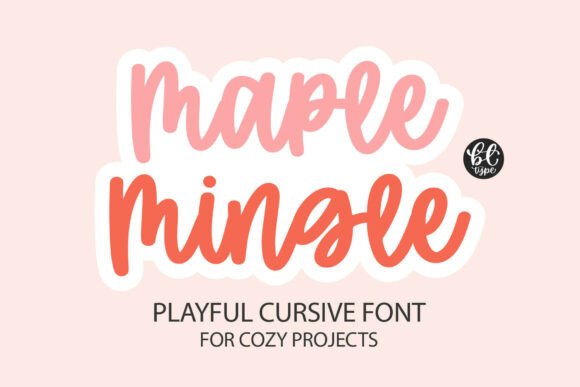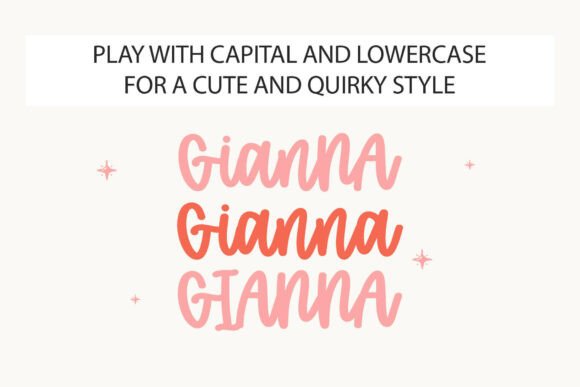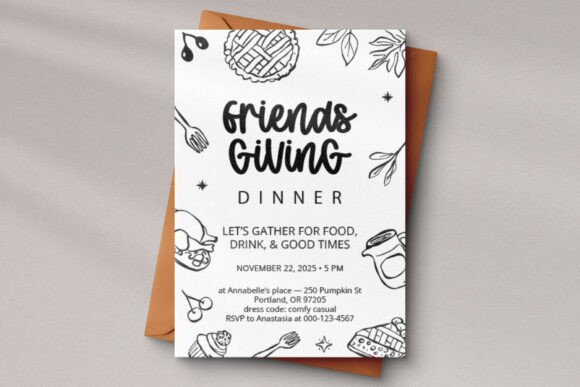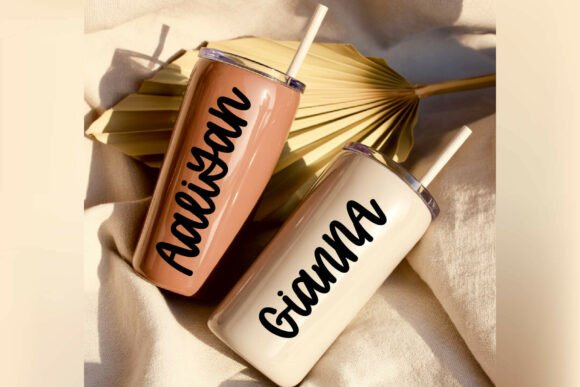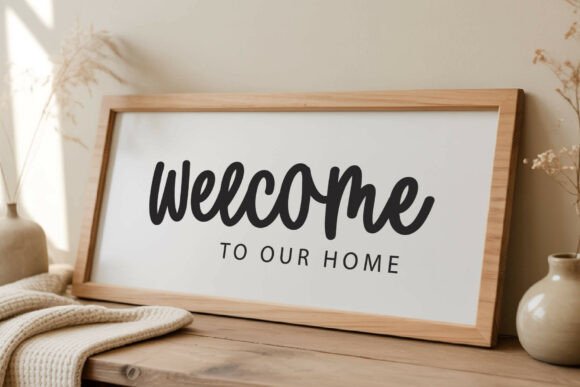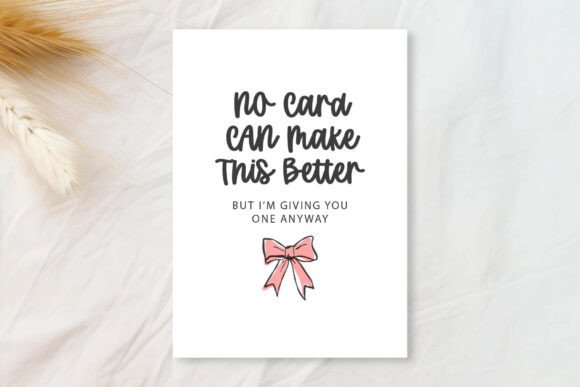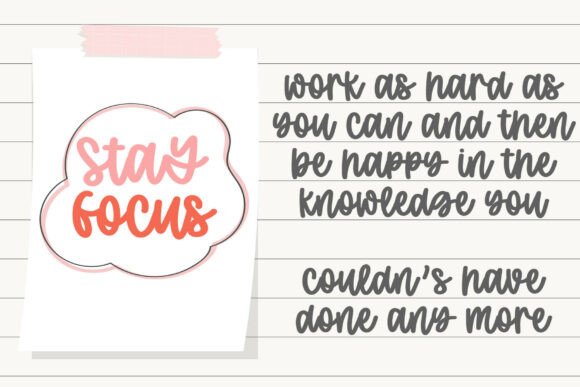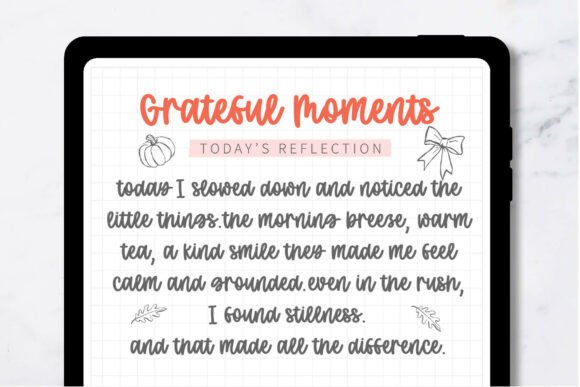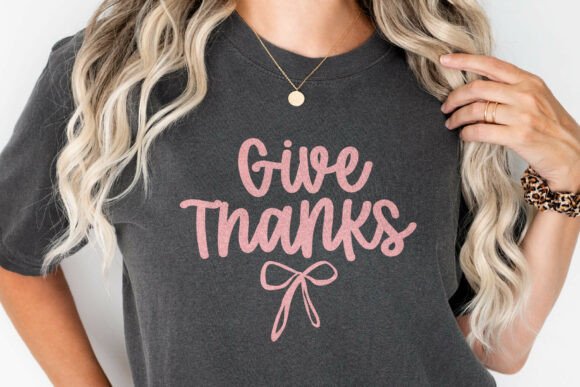
Maple Mingle Font
Maple Mingle is a bouncy, bold, playful cursive that loves to mix CAPS and lowercase for a cute, quirky look. Bring cozy, hand-lettered vibes to names on tumblers, farmhouse welcome signs, Friendsgiving invites, planner pages, stickers, and SVG projects. The strokes are rounded, lively, and thick enough to stay readable on both print and cut machines (Cricut / Silhouette / Glowforge).